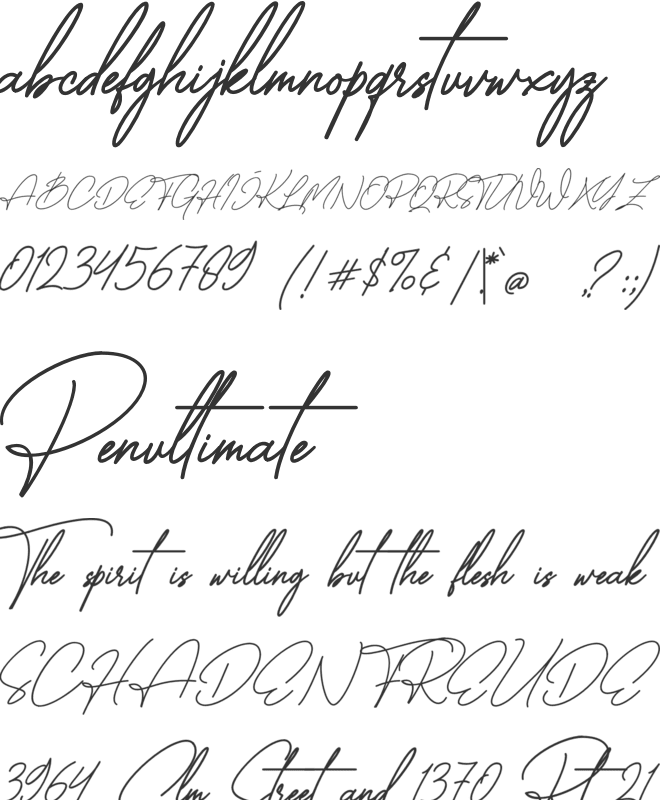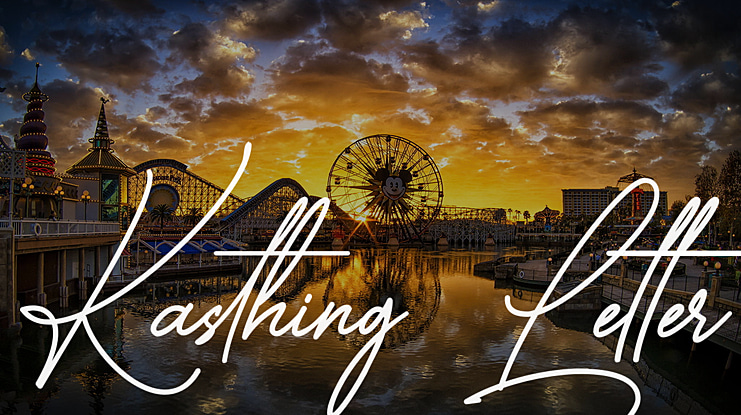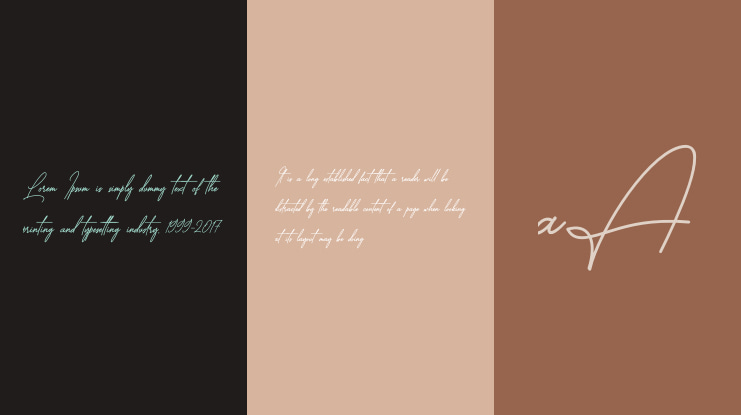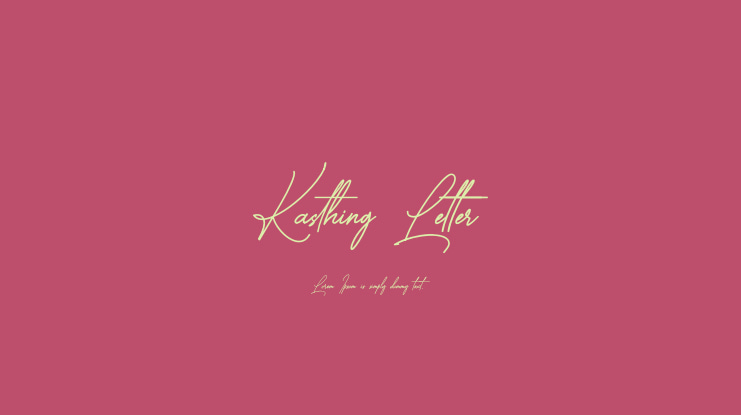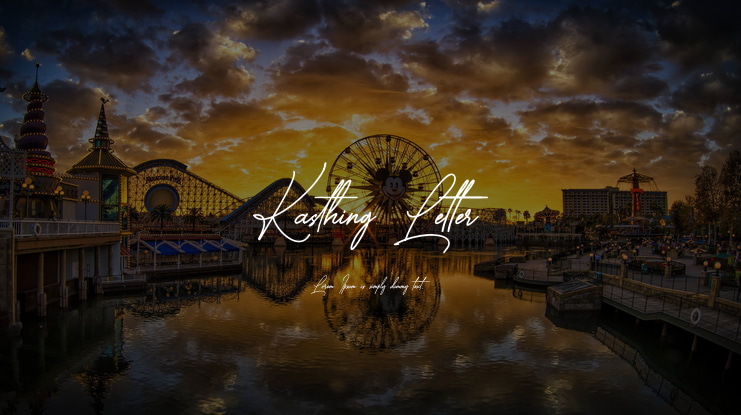
Kasthing Letter Font
M. Rizal Yustriadi
This is a sweet and elegant handwritten font manufactured by Mr_Type. Such a form of luxury that will represent each of your best projects! West America is suitable for many different designs for bussines card, quotes, social media, signature, wedding invitations, advertisements, product designs, label, photography, watermark and more.